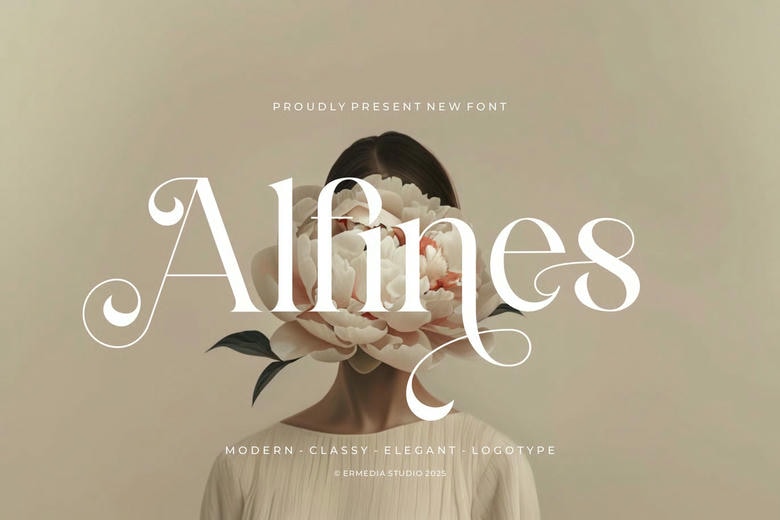
Alfines Font
Alfines Serif is a modern and elegant typography of any branding and logo. It is a beautiful character Serif that is modern and classy. This font may be used to design invitation cards, cool logos, movie titles, movie names, business cards, book titles, brand names, and many other designs.
Alfines serif is a polished serif typeface that has both elegance and the instant. This font is a great match to any kind of work, as its stylish ligatures are truly eye-catching.
Alfines Serif Font